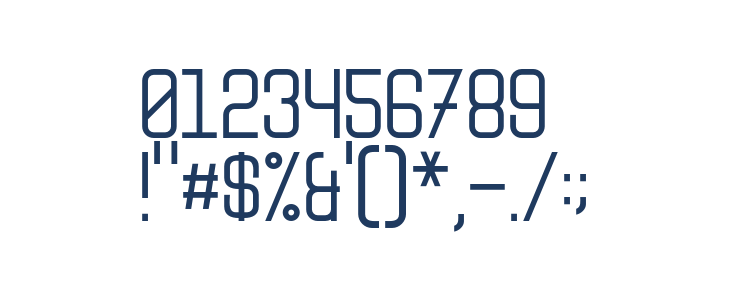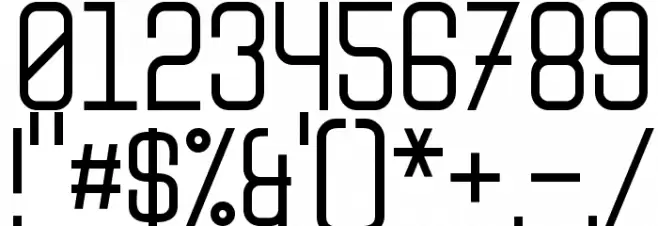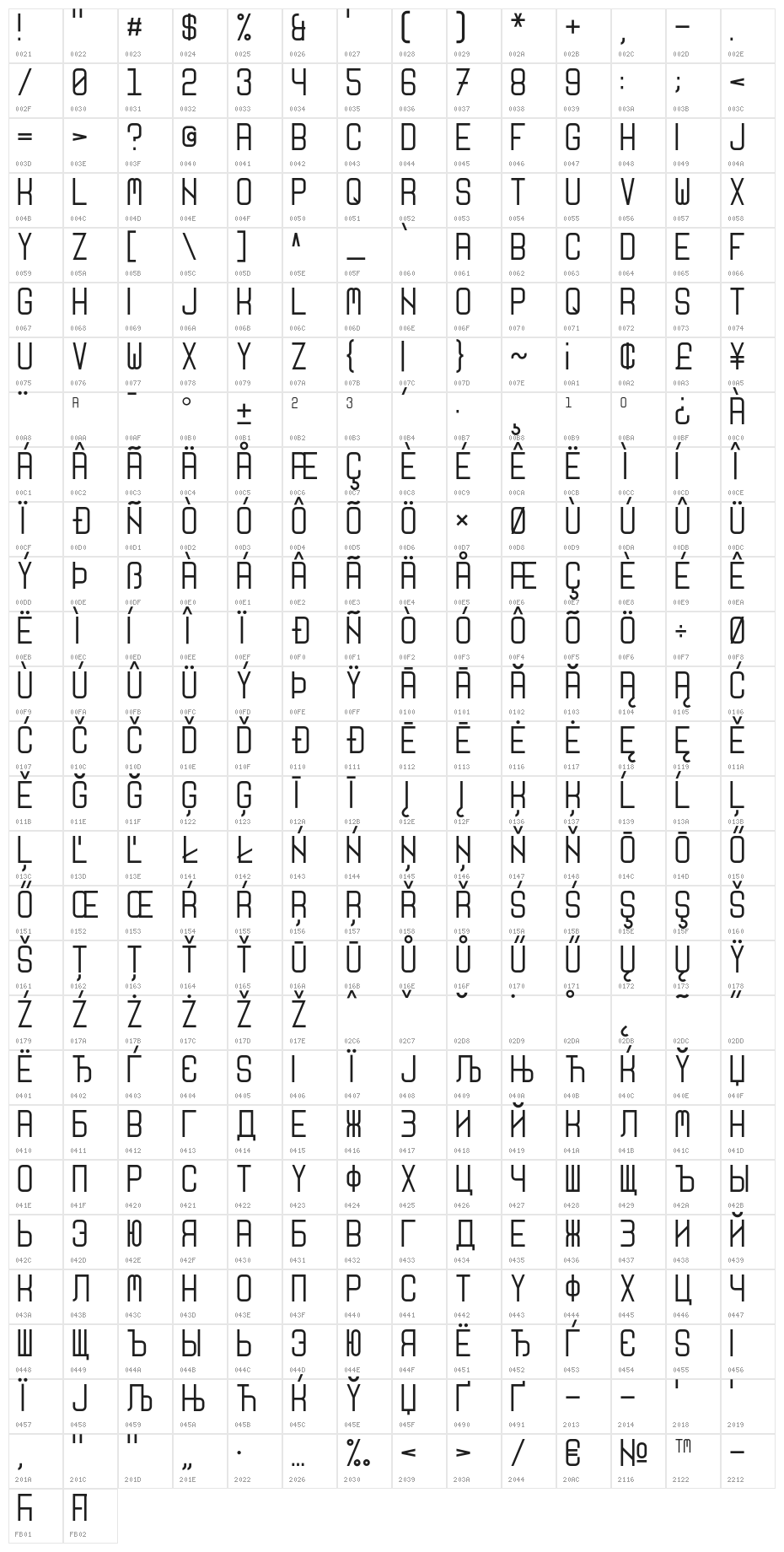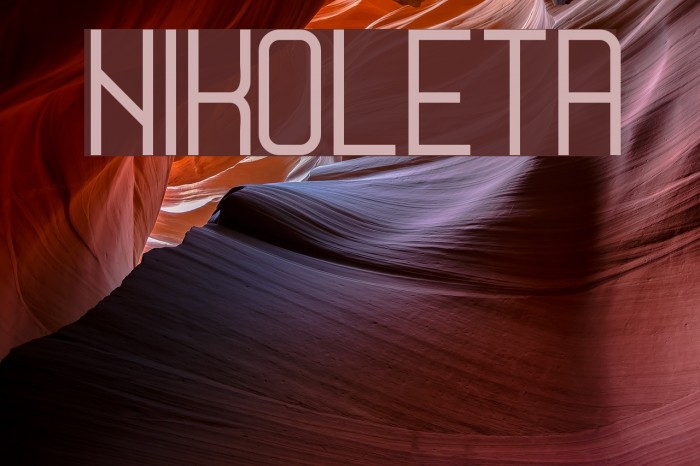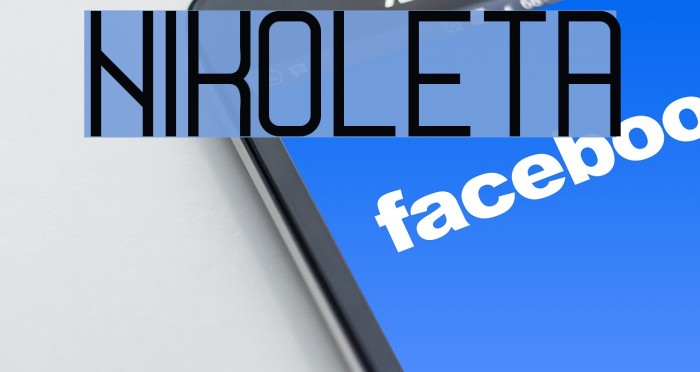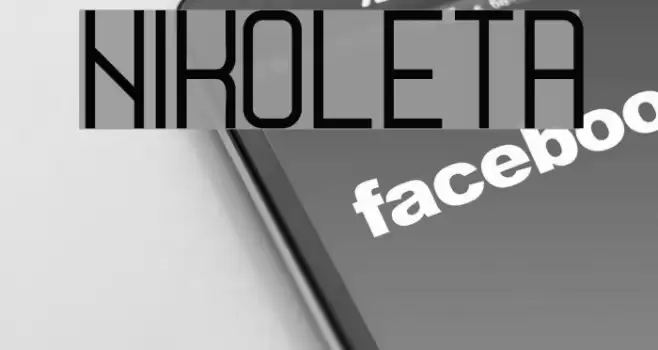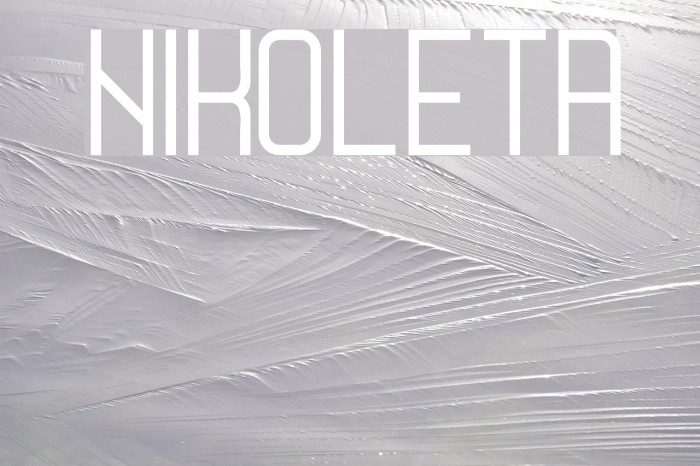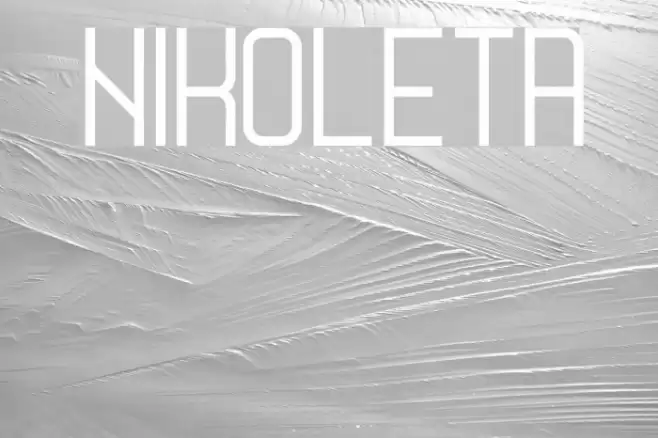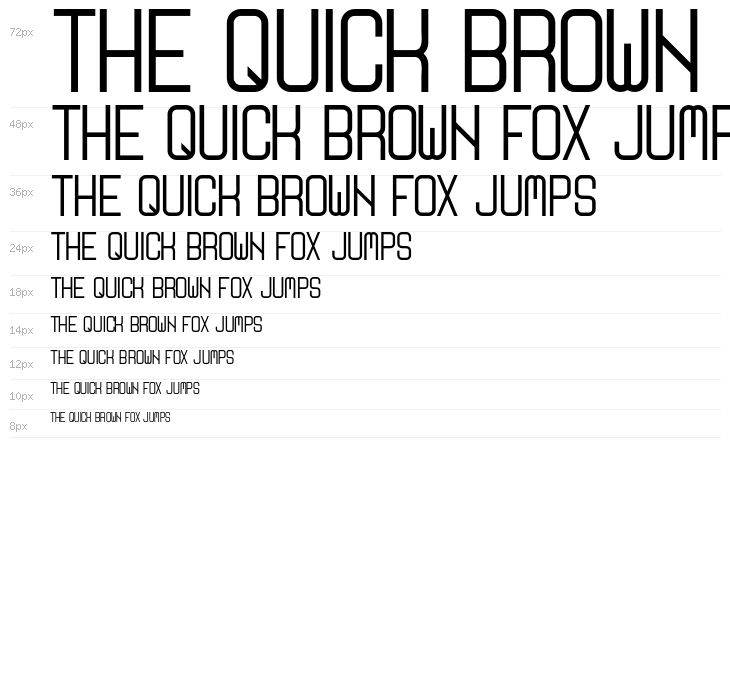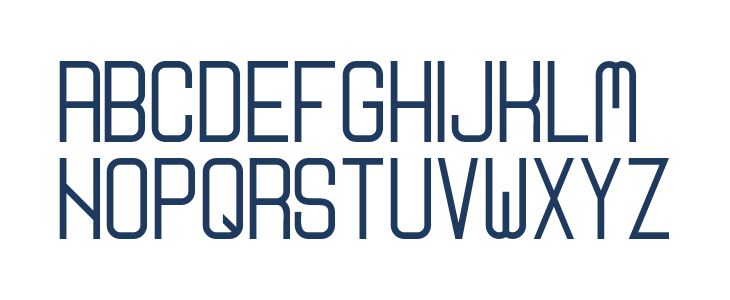
Nikoleta Font
Nikoleta Description
This font features a modern, geometric design with clean, straight lines and a uniform stroke width. The characters are constructed with a consistent height and width, giving it a structured and orderly appearance. The uppercase and lowercase letters maintain a similar style, with subtle variations in form. The numerals are clear and legible, matching the overall aesthetic of the alphabet. Special characters are included, complementing the set with a cohesive look. The font's simplicity and precision make it suitable for a variety of design applications.
| Use Case | Headlines, Logos, Digital Interfaces |
| Proposed Projects | Ideal for branding, signage, and digital interfaces where clarity and modernity are desired. |